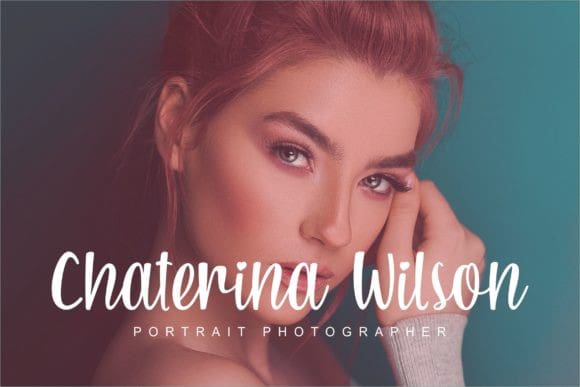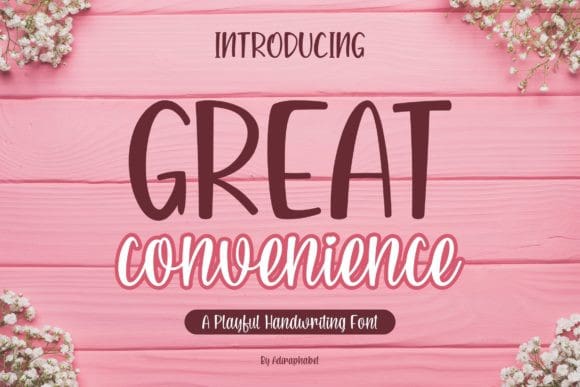
Great Convenience Font
Great Convenience Font is a playful and friendly handwriting font. It looks fun, jolly and cute. This font can be used for invitations, business cards, greeting cards, quotes, fashion, photography, and so much more.